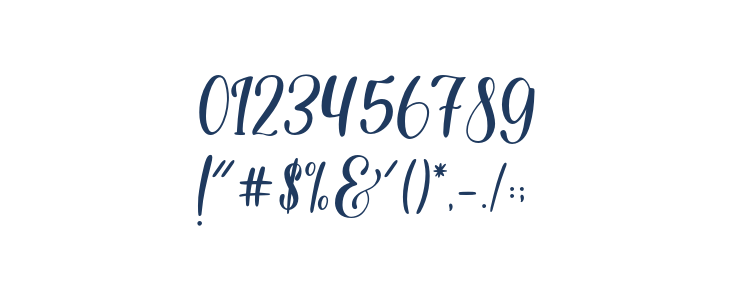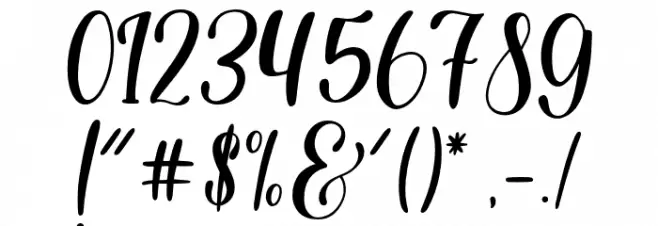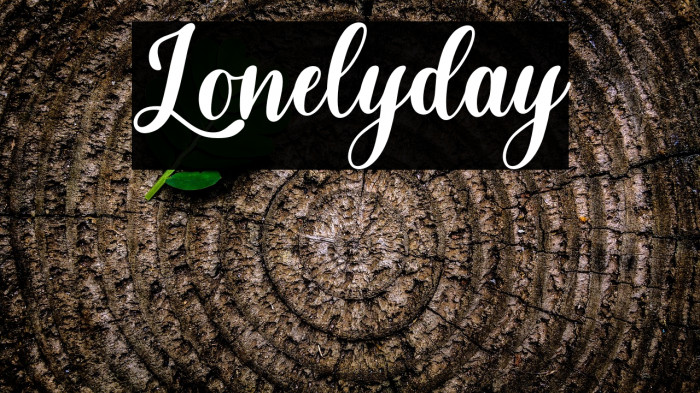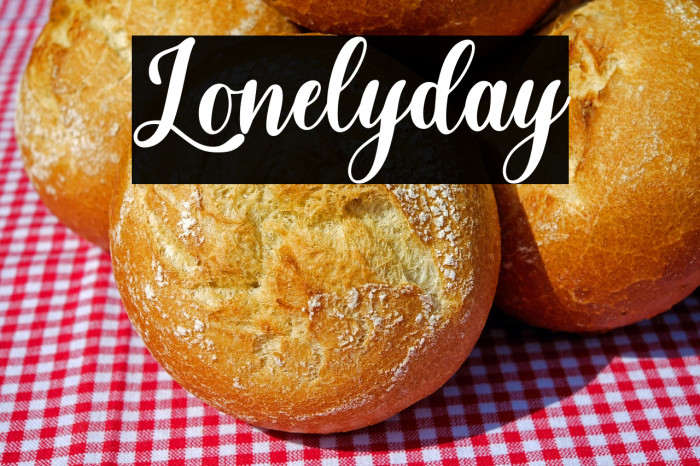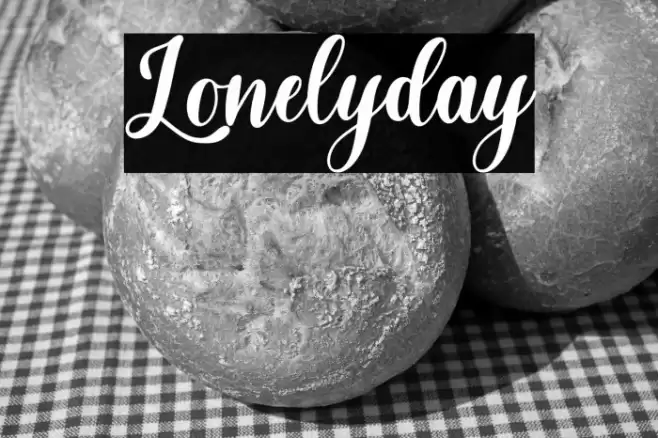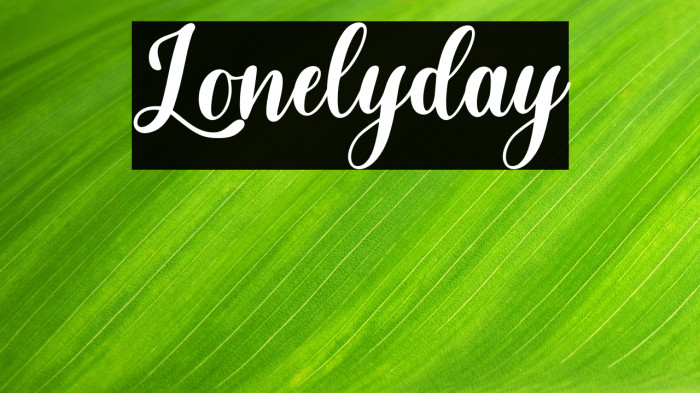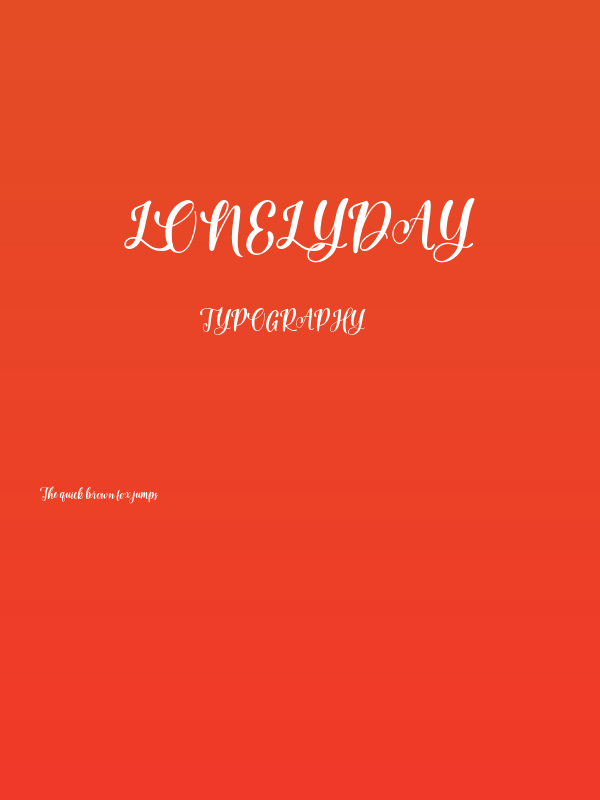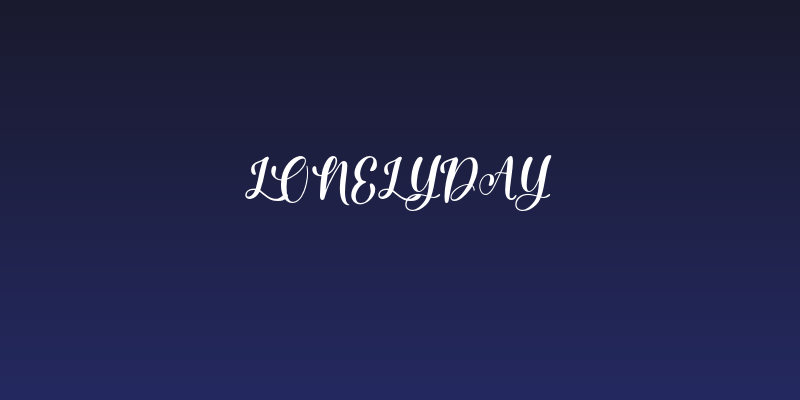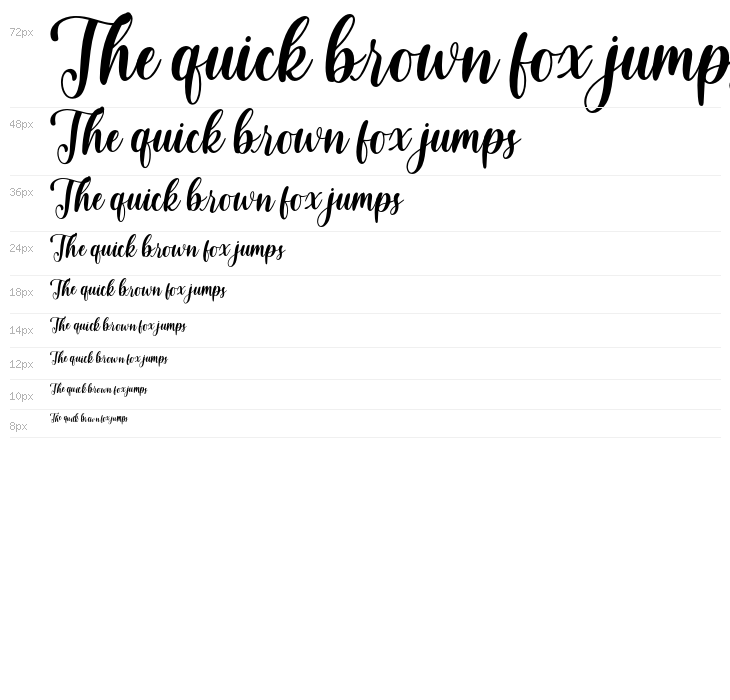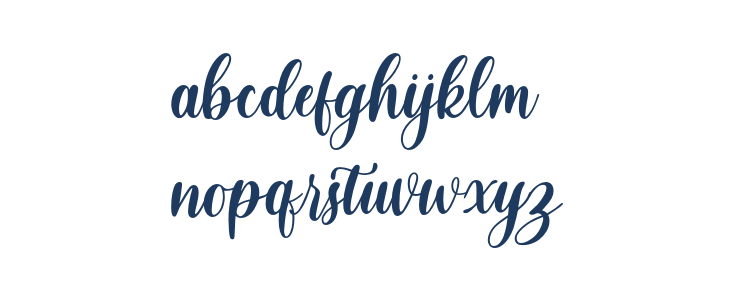
Lonelyday Font
Lonelyday Description
This font features an elegant and flowing script style, characterized by its smooth, cursive strokes and graceful loops. The uppercase letters are ornate, with distinctive swirls and flourishes that add a touch of sophistication. The lowercase letters maintain a consistent fluidity, with gentle curves and a harmonious balance. Numbers and special characters are designed to complement the overall aesthetic, ensuring a cohesive look across all elements. The font's design is both decorative and legible, making it suitable for a variety of creative applications.